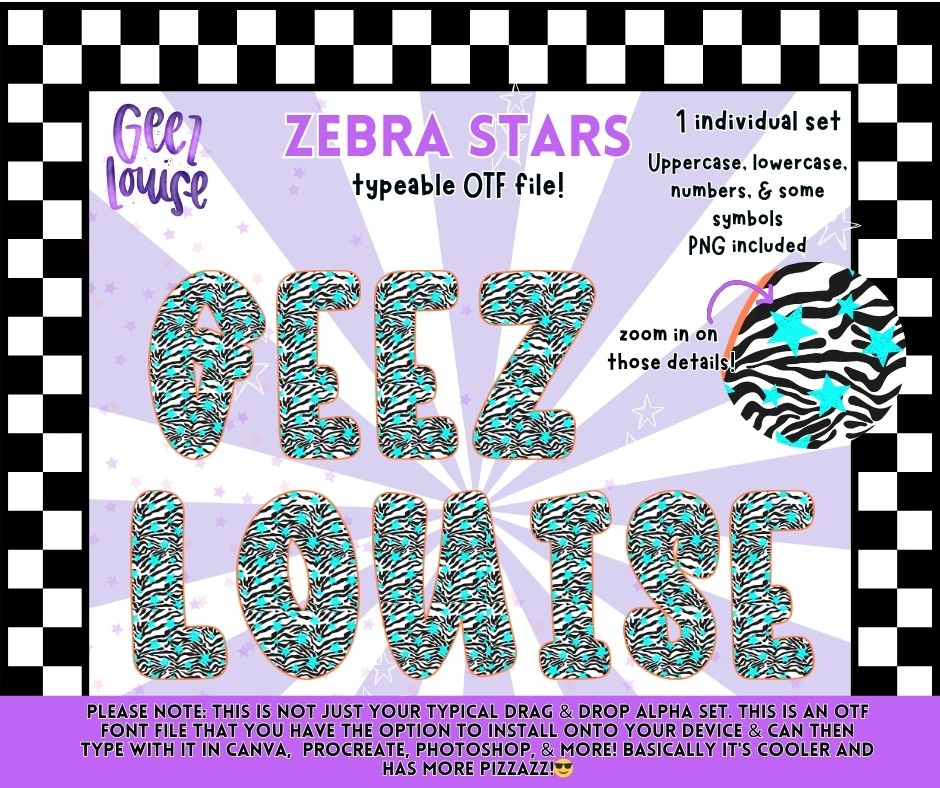
Zebra Stars OTF Font + PNG Alpha Set | Animal Print Star Typeface | Typeable Font for Canva & Procreate
A little wild… a little sparkly… a whole lot of fun 🖤⭐
Zebra Stars is a bold OTF font featuring a striking zebra print base with playful star accents and pops of color. It’s the perfect mix of edgy and fun—designed to make your creations stand out loud and proud.
And yep… fully typeable 🙌
It’s fierce, fun, and full of personality—basically your designs just got louder 🐾✨